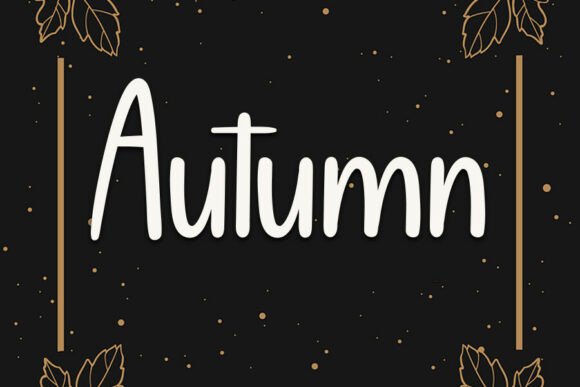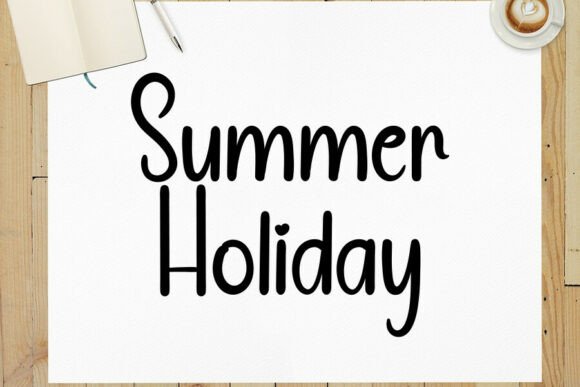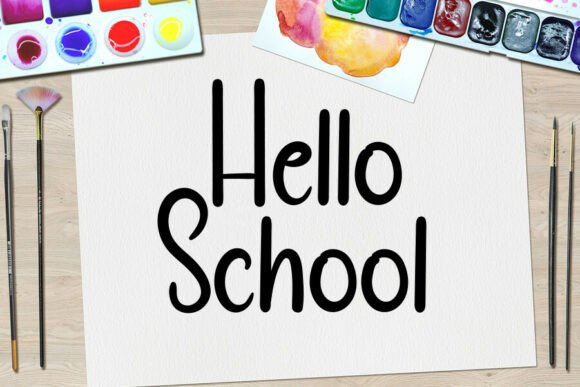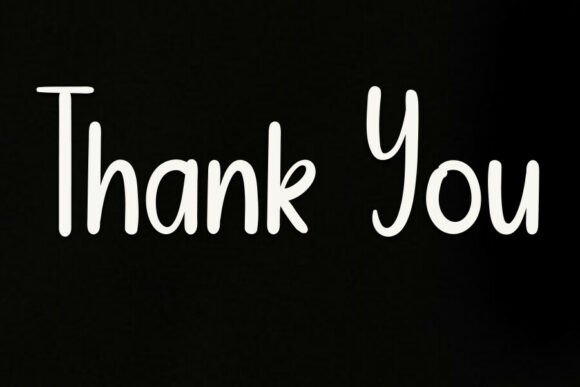
Introducing Garlic Font: Elevate Your Designs with Elegance and Sophistication
Are you a designer or crafter looking for a font that exudes style and elegance? Look no further than Garlic Font, a stunning handwritten font that is sure to take your designs to the next level. With its beautiful, cursive script and extensive feature set, Garlic Font is the perfect choice for a wide range of design projects, from wedding invitations and greeting cards to logos and business cards.
A Font that Exudes Elegance and Sophistication
Garlic Font is a truly unique and stylish font that is sure to make your designs stand out. Its elegant, handwritten script is perfect for adding a touch of sophistication and glamour to any design project. Whether you’re creating wedding invitations, thank you cards, or greeting cards, Garlic Font is the perfect choice. Its beautiful, flowing lines and intricate details make it a joy to use and a pleasure to behold.
One of the best things about Garlic Font is its versatility. It’s perfect for a wide range of design projects, including:
• Thank you cards and gift tags
• Quotes and typography art
• Greeting cards and postcards
• Logos and branding materials
• Business cards and letterheads
Whether you’re a professional designer or a crafter looking to add a personal touch to your projects, Garlic Font is the perfect choice.
PUA Encoded for Easy Access to Glyphs and Alternates
Another great feature of Garlic Font is that it’s PUA (Private Use Area) encoded. This means that you can access all of the glyphs and alternates with ease, giving you even more flexibility and creative control over your designs. With PUA encoding, you can easily access:
• Alternate characters and glyphs
• Swashes and flourishes
• Ligatures and ornaments
This makes it easy to create unique and customized designs that reflect your personal style and creativity.
Why Choose Garlic Font?
So why choose Garlic Font over other fonts? Here are just a few reasons:
• Unique and stylish design: Garlic Font has a truly unique and stylish design that’s sure to make your designs stand out.
• Highly versatile: Garlic Font is perfect for a wide range of design projects, from wedding invitations to logos and business cards.
• PUA encoded: Garlic Font is PUA encoded, making it easy to access all of the glyphs and alternates.
• Elegant and sophisticated: Garlic Font exudes elegance and sophistication, making it perfect for designs that require a touch of glamour.